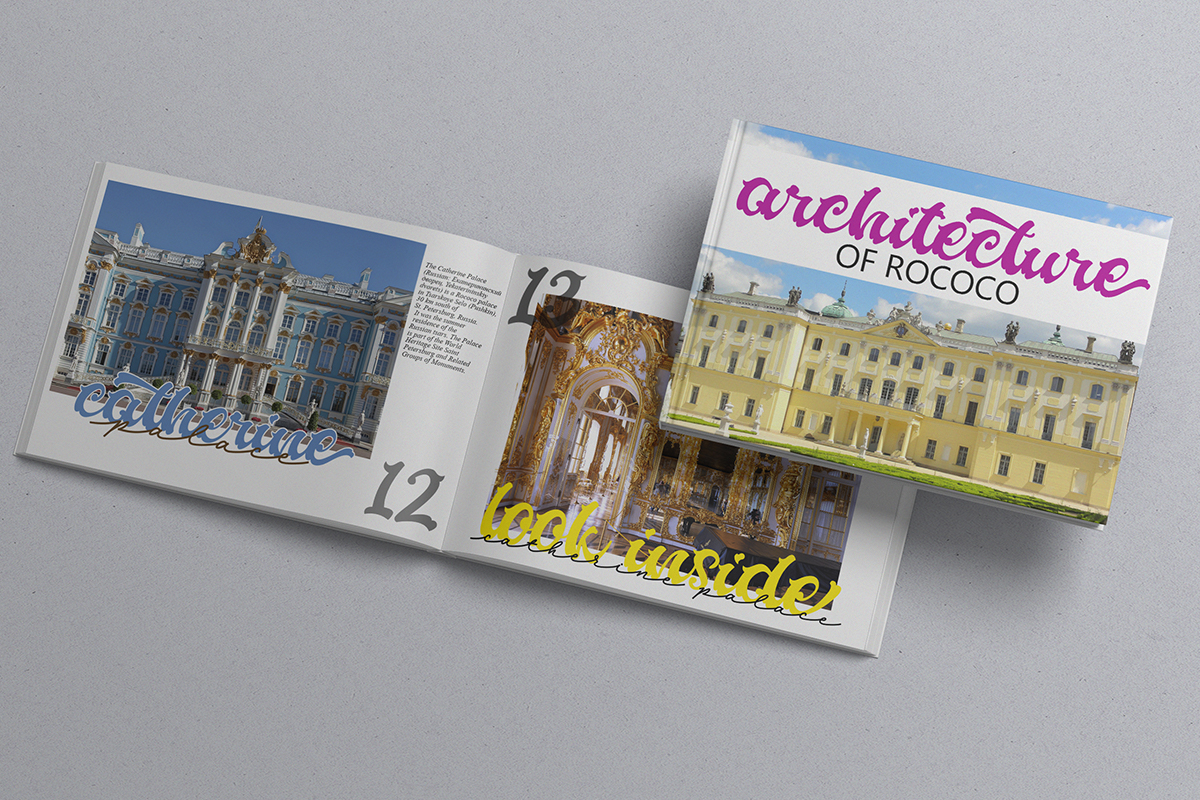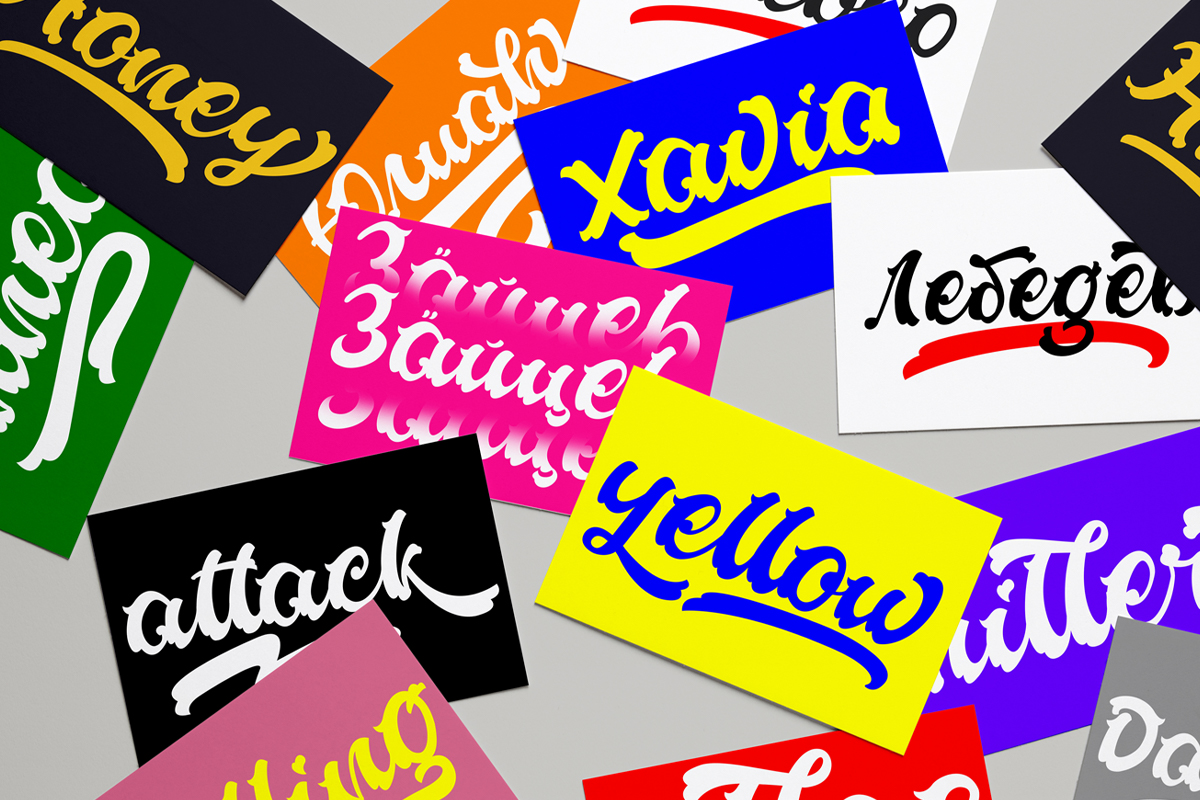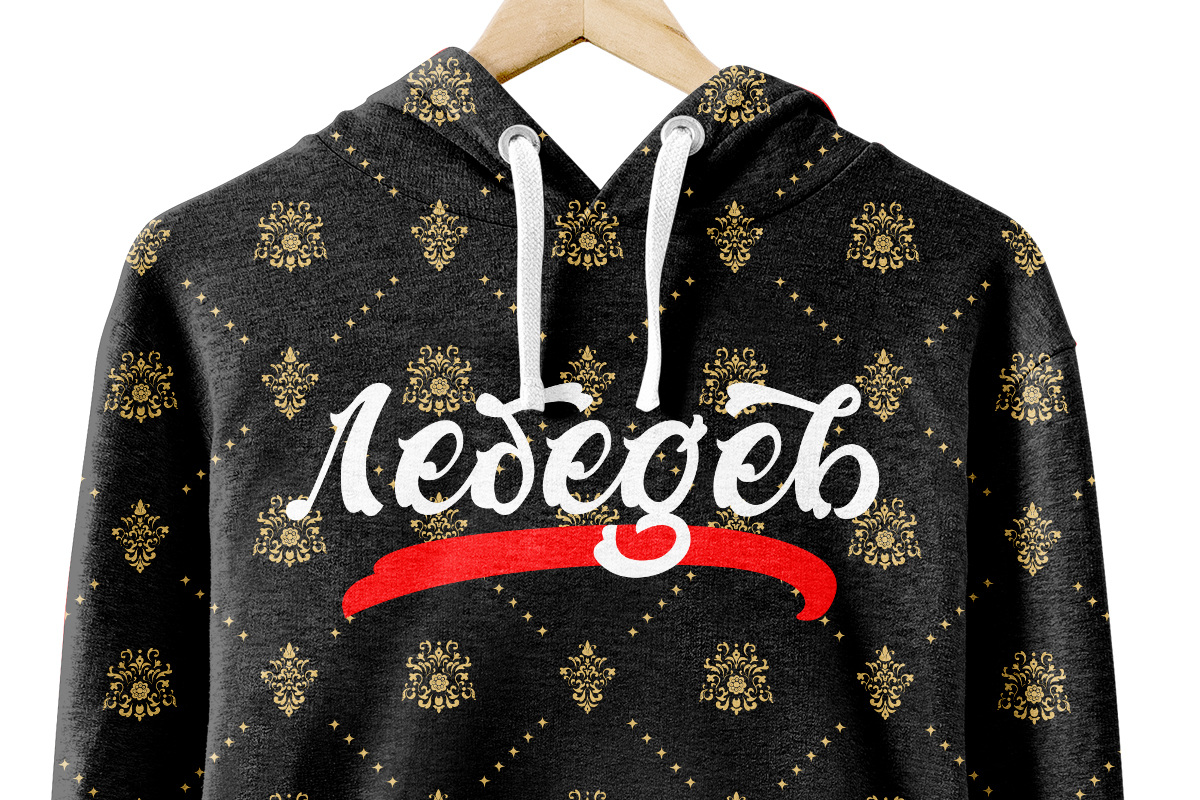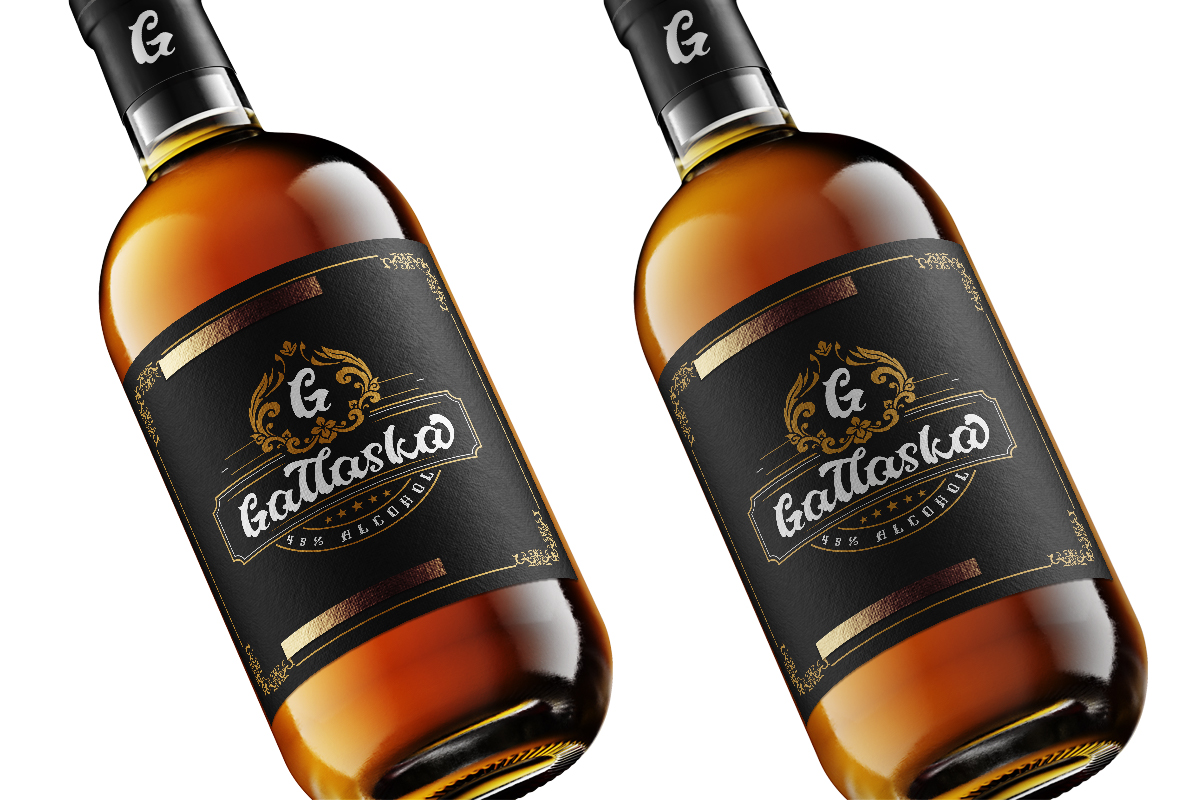
Agasthiya Rococo Font
Agasthiya Rococo Script Font
This is a script type font with 552 glyphs, supports western & eastern europe, turkish, cyrillic languages. equipped with alternates lowercase, ligatures, and swash. inspired by the art of rococo architecture, which is an ornamental architectural style that emerged in the 18th with its characteristic intricate and layered details. The rococo architectural style is a further development of Baroque architecture, where the forms used have not changed. The Rococo style first appeared in the 18th century in Paris. makes this font has a distinctive character style similar to victorian